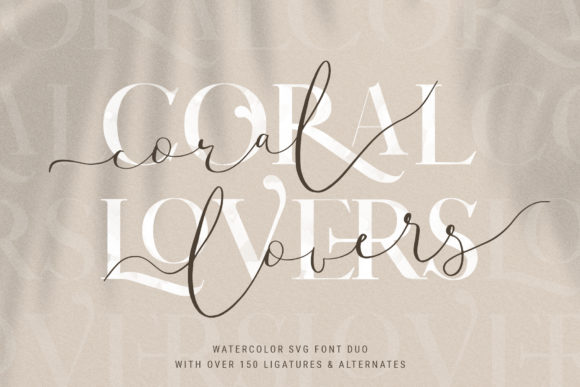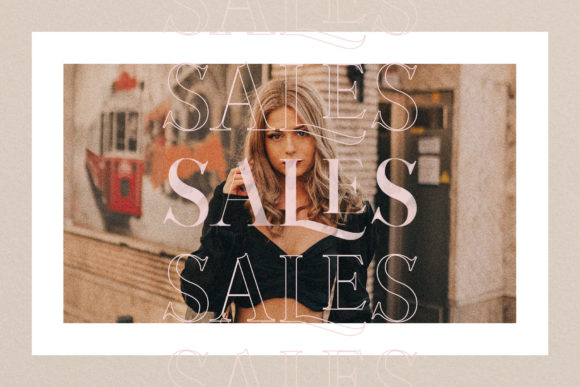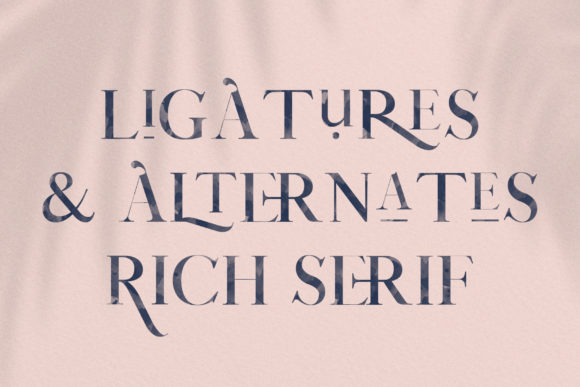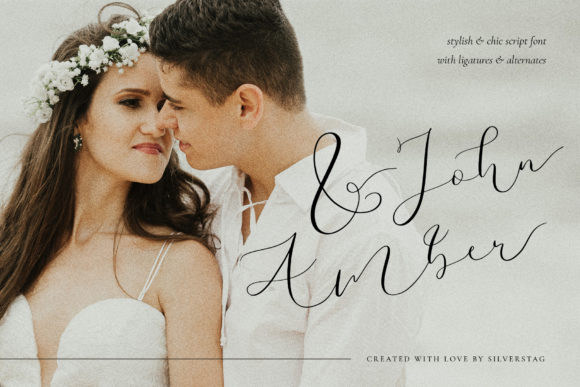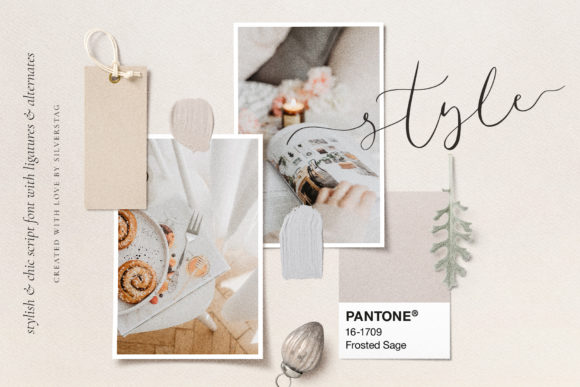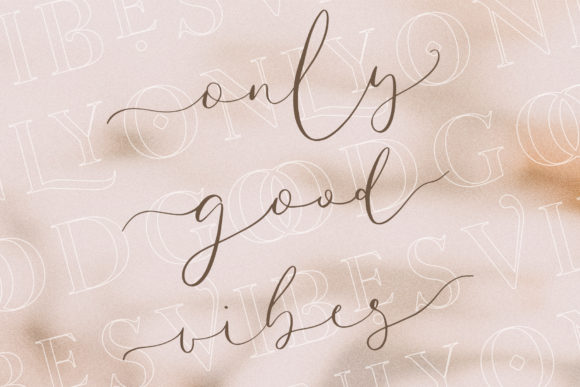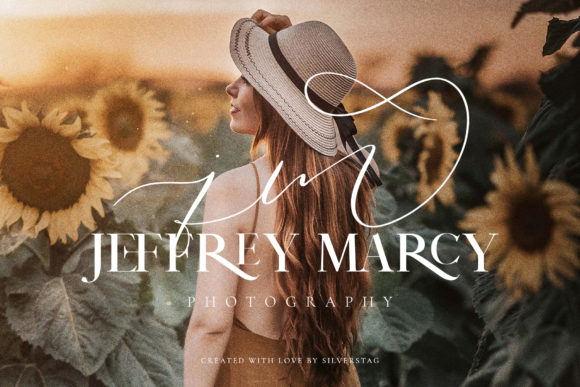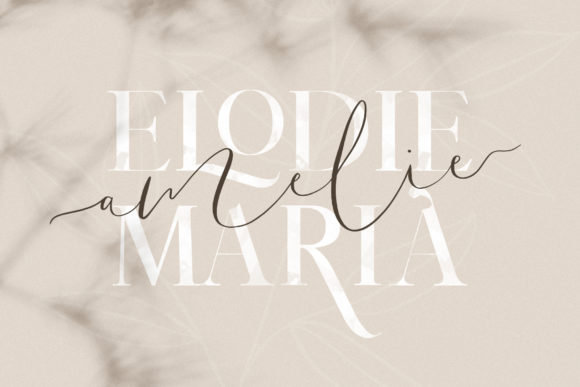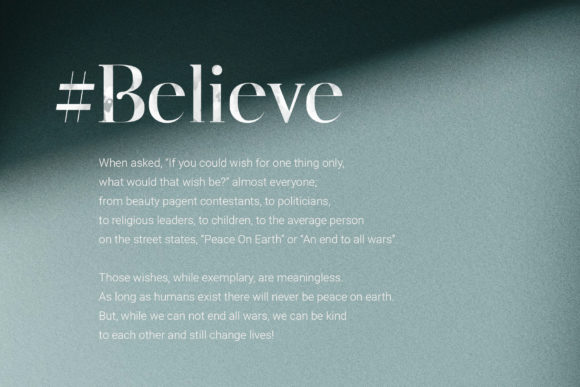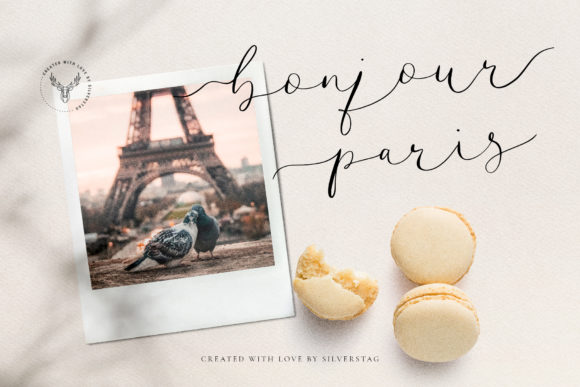
Coral Lovers Duo Font
About Coral Lovers Duo Font
Coral Lovers Duo is a friendly and modern font duo with serif and script styles. Use them together for perfect design harmony!